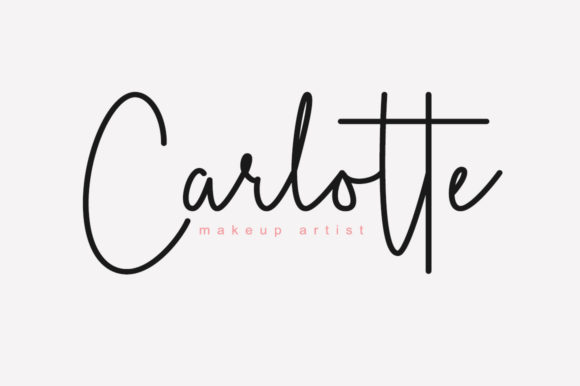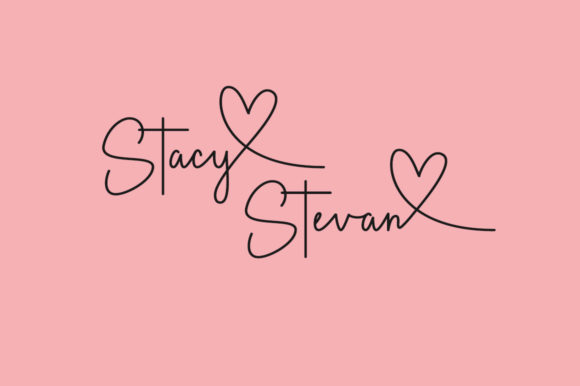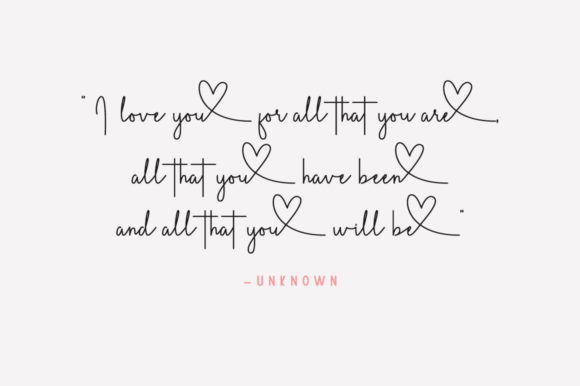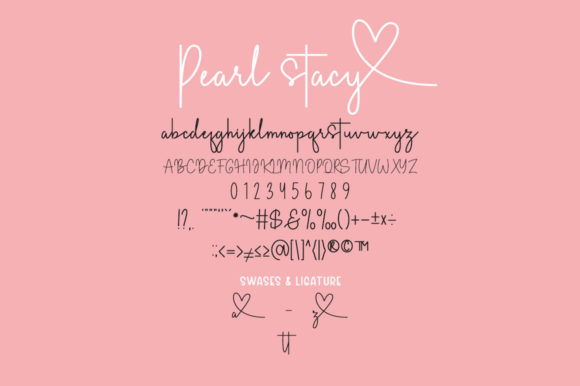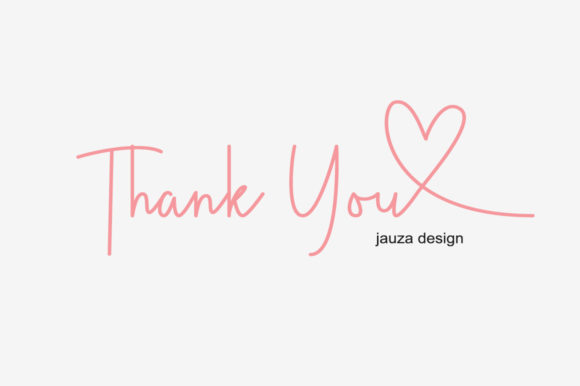
Introduction to Pearl Stacy Font
Pearl Stacy is a thin lettered and delicate script font.
It is PUA encoded which means you can access all of the amazing glyphs and ligatures with ease Add it confidently to your favorite creations and let yourself be amazed by the outcome generated.
Key Features of Pearl Stacy Font